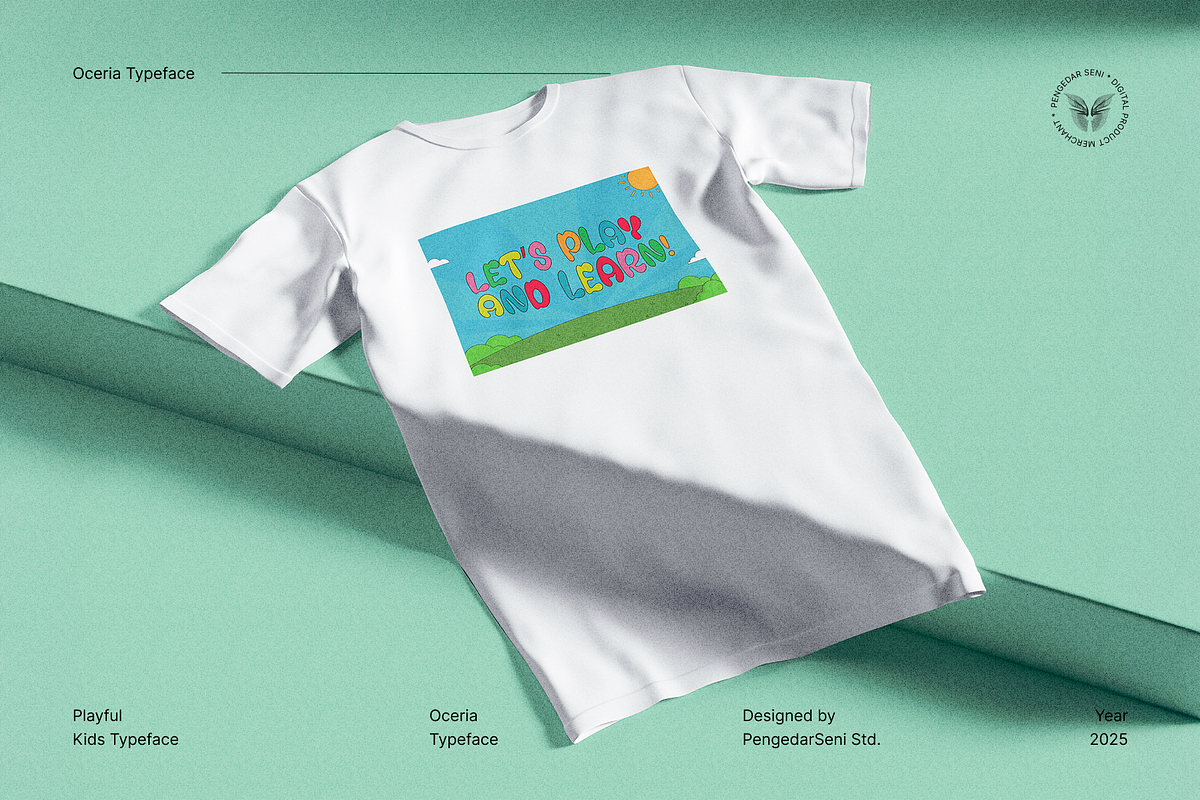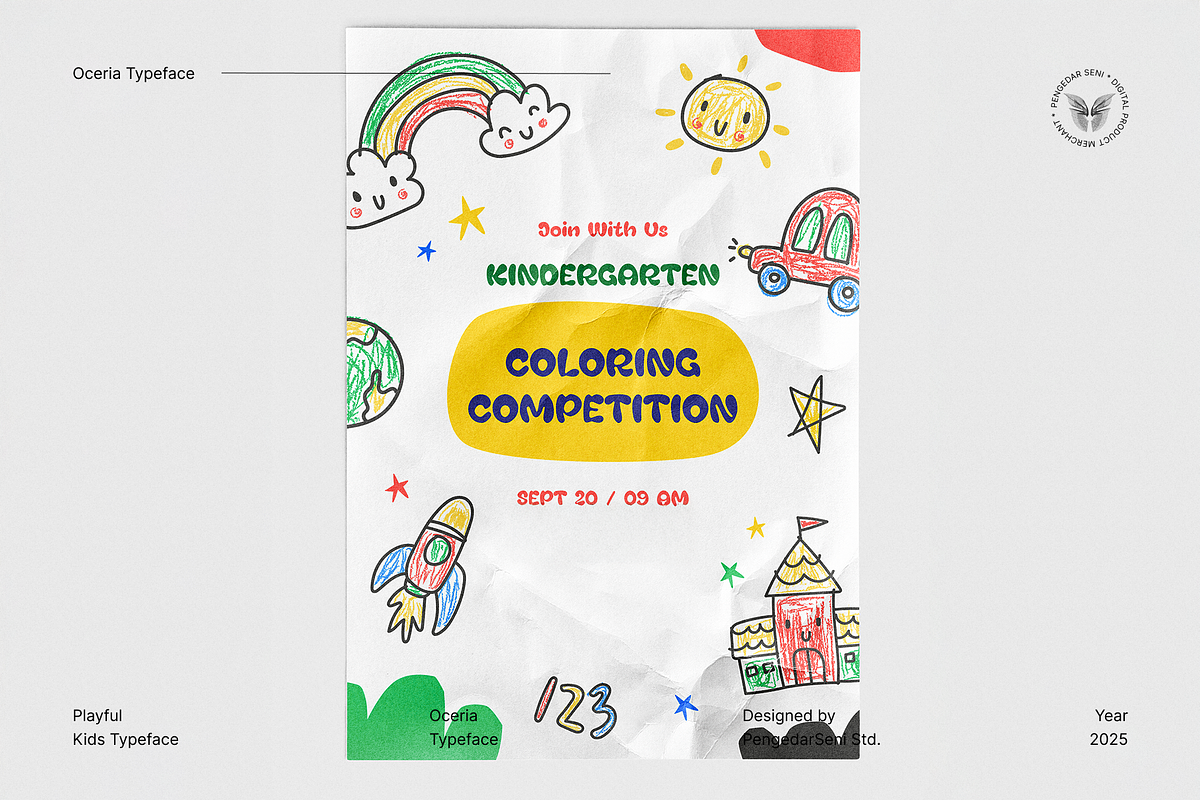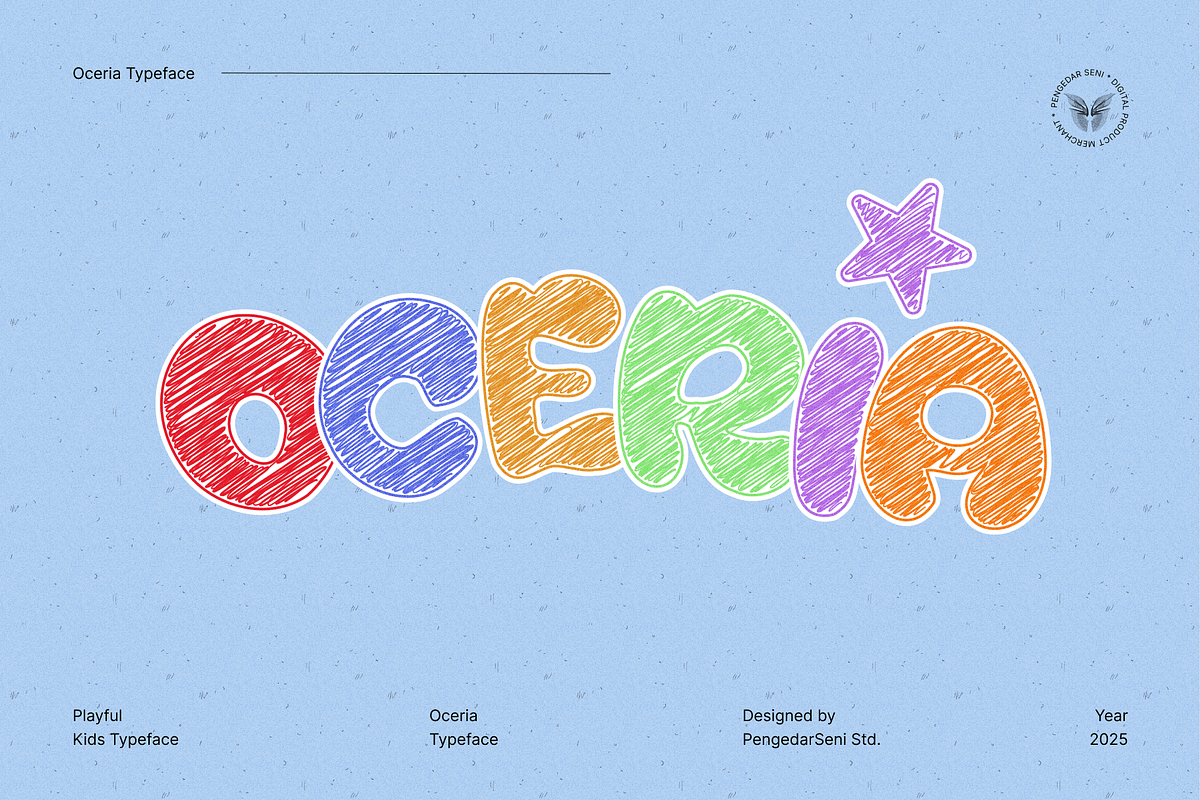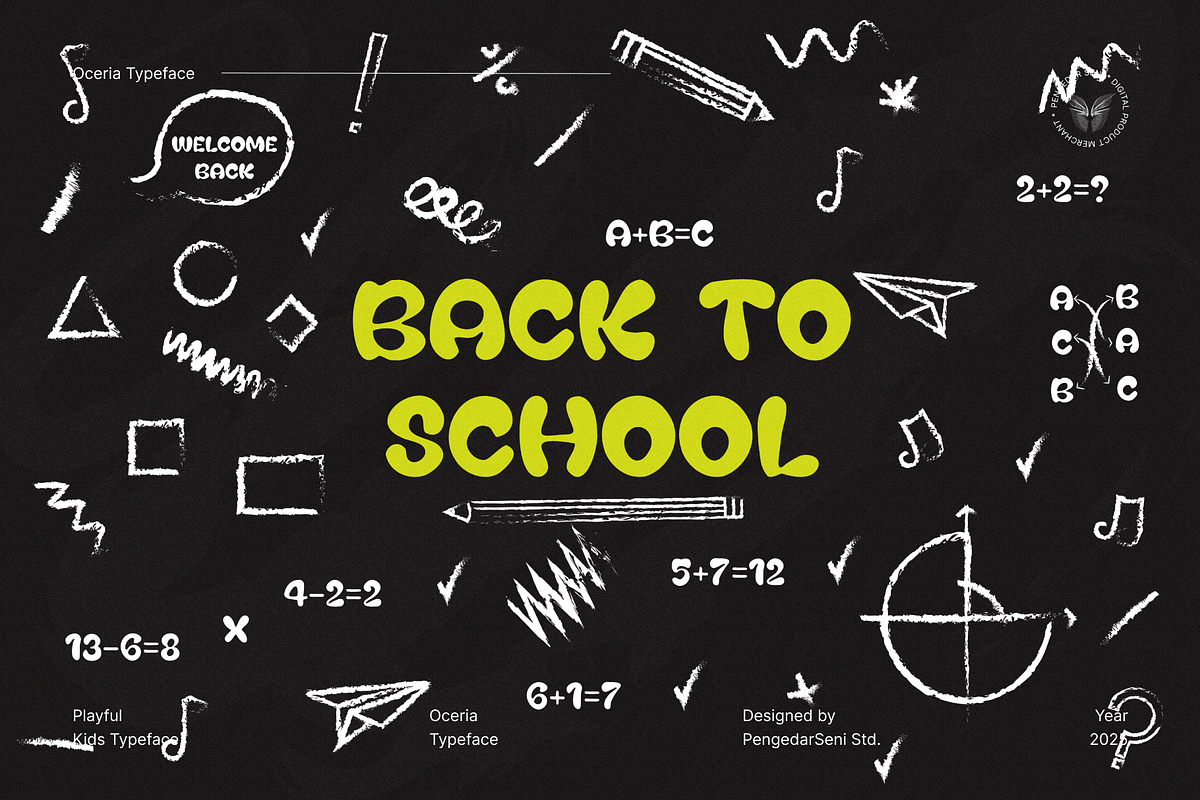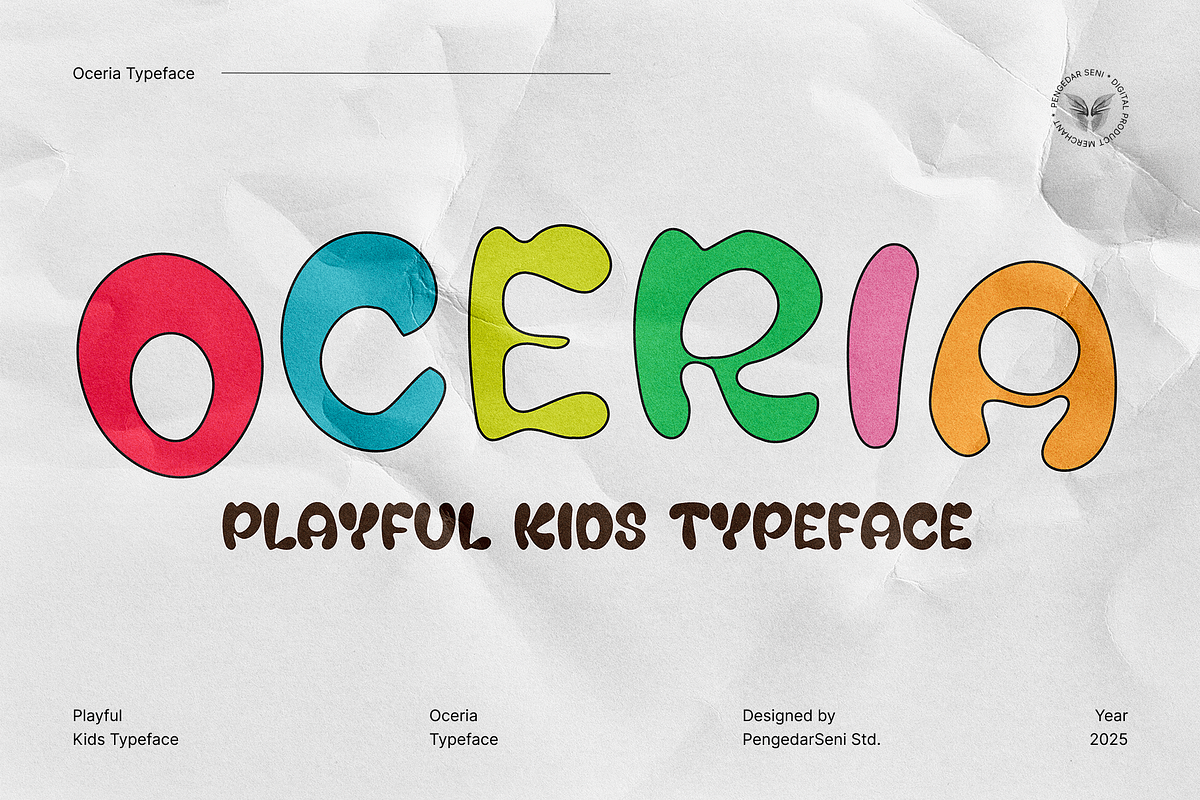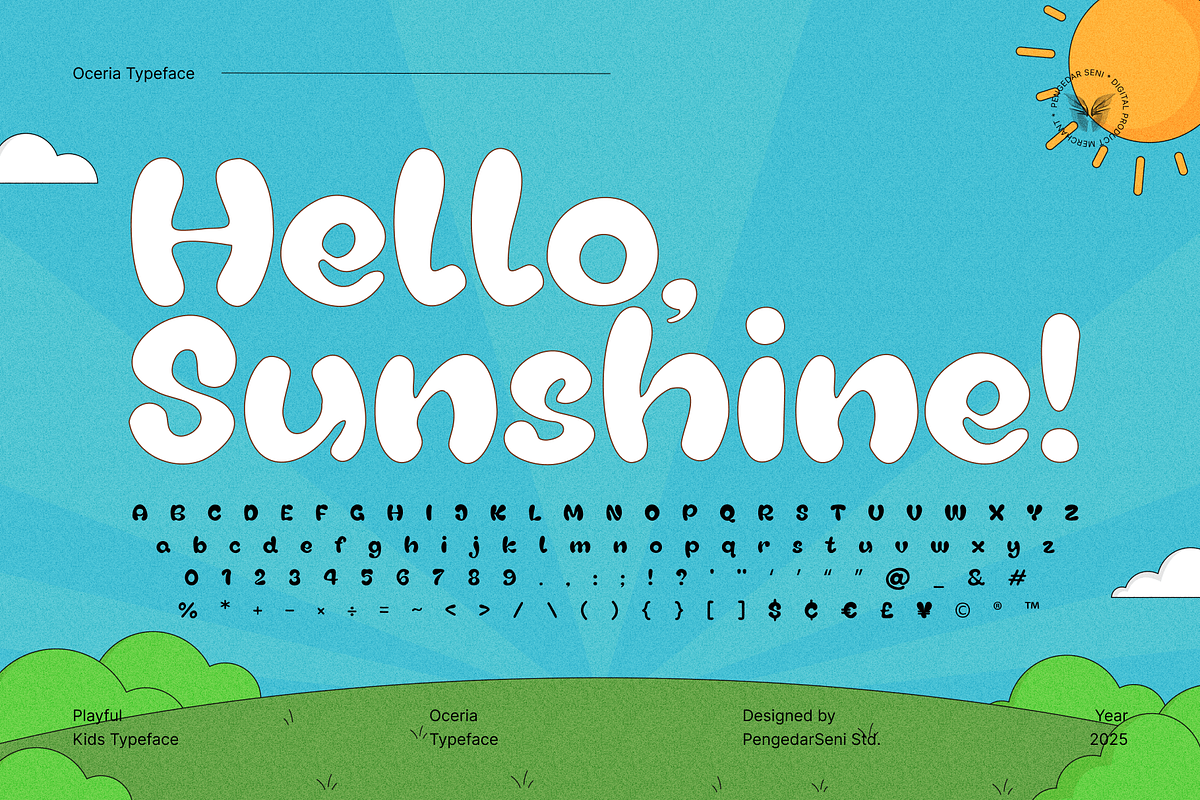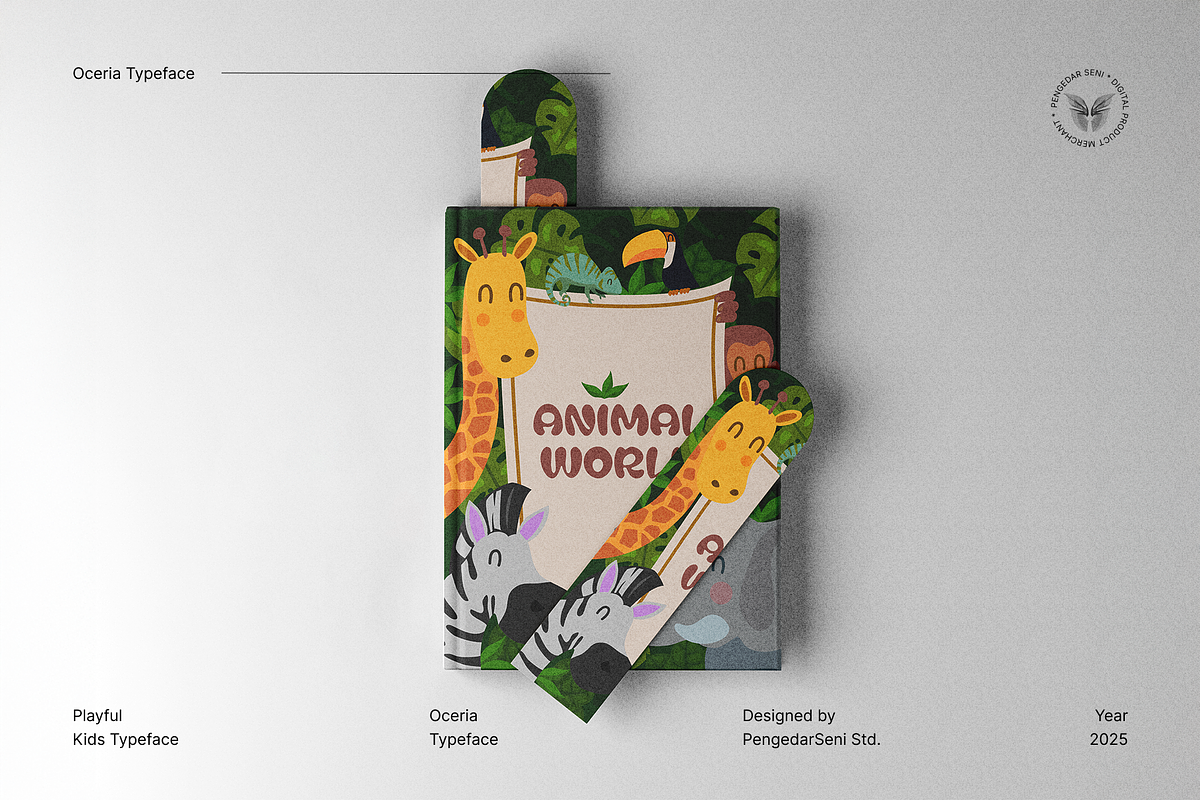
Oceria – Playful Kids Typeface
Bright Smiles, Bold Letters, Endless Fun!
Oceria is a cheerful and playful typeface designed to capture the joy and imagination of childhood. The rounded “O” symbolizes friendliness and warmth, while "Ceria"—taken from the Indonesian word for "cheerful"— embodies happiness and excitement, making it the perfect font for kids' projects.
🎨 Why Choose Oceria?
✅ Whimsical & Playful Design – Crafted for fun, energetic, and child-friendly themes.
✅ Bold & Readable – Easy to read while maintaining a lively personality.
✅ Full Character Set – Includes uppercase, lowercase, numerals, and punctuation.
✅ Versatile Usage – Ideal for kids’ logos, social media, book covers, packaging, and more.
Oceria brings a world of imagination to your designs-where creativity and joy shine in every letter! ✨